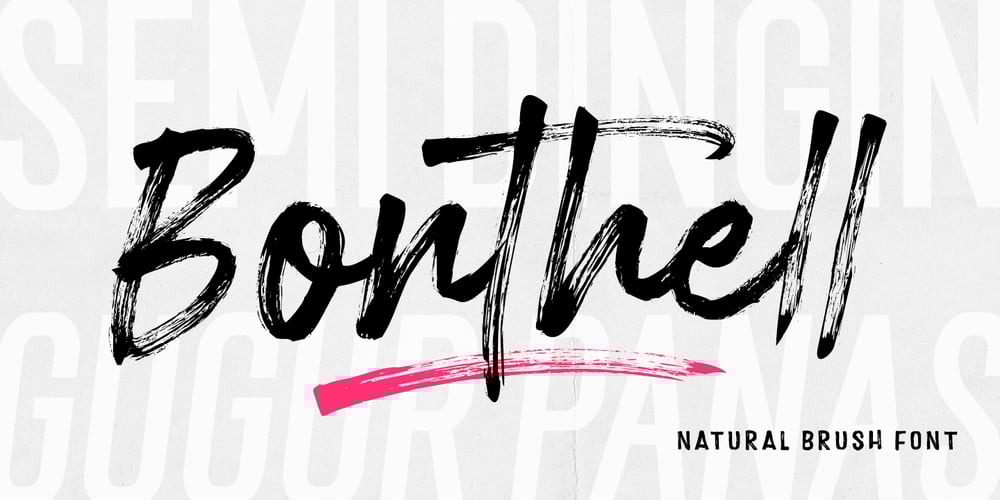
Bonthell
Bonthell font
Bonthell Font Family was designed by Mauli Zari and published by Dhan Studio. Bonthell contains 2 styles and family package options. Bonthell is a beautiful textured brush font, a contemporary approach to design, naturally handmade and with a cool underlines. It also has several ligatures and alternatives that make your design more attractive.Suitable for use in title designs such as clothing, invitations, booklets, quotes, branding, logos, stationery designs, greeting cards, t-shirts, packaging designs, posters and more.